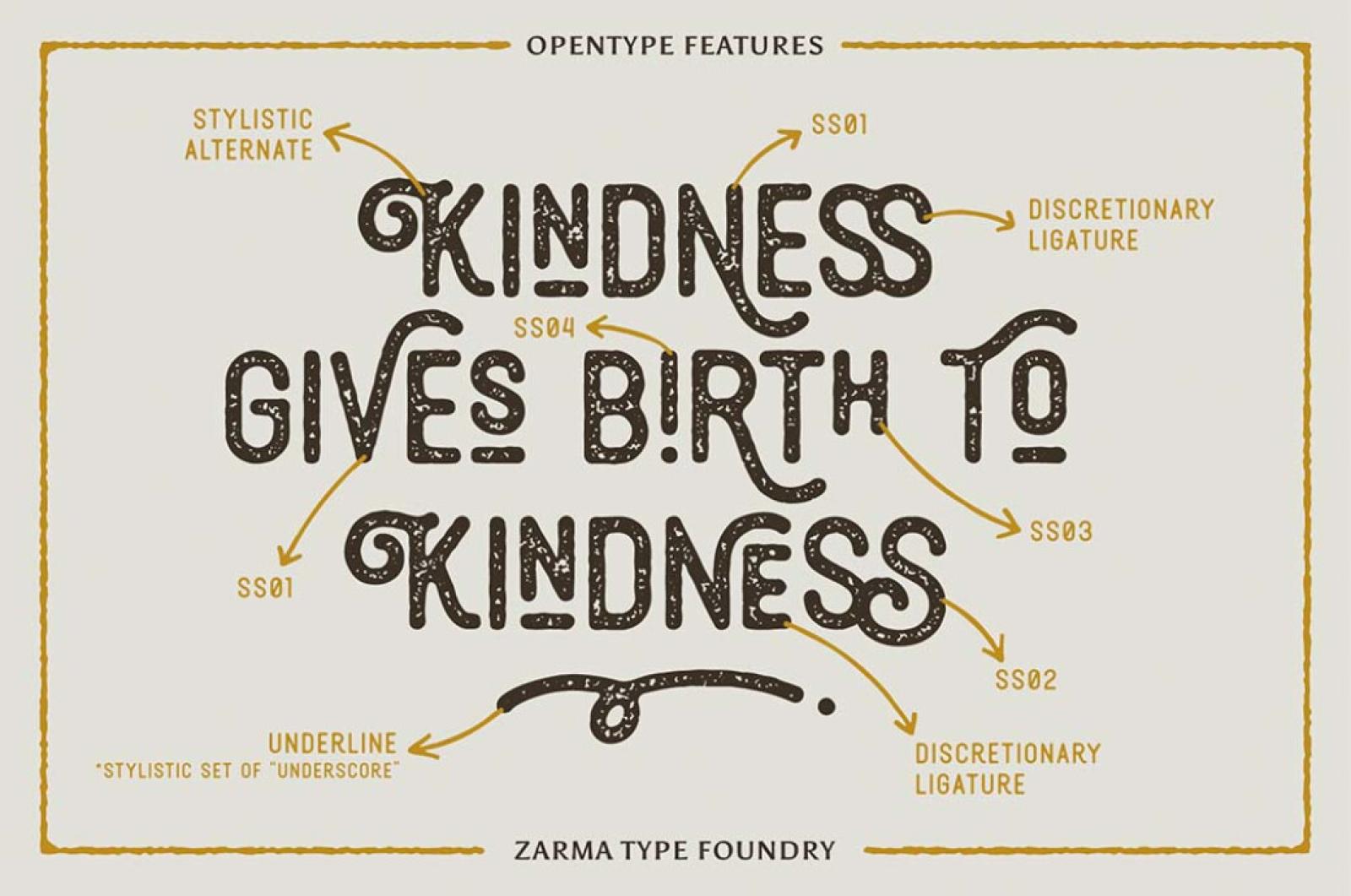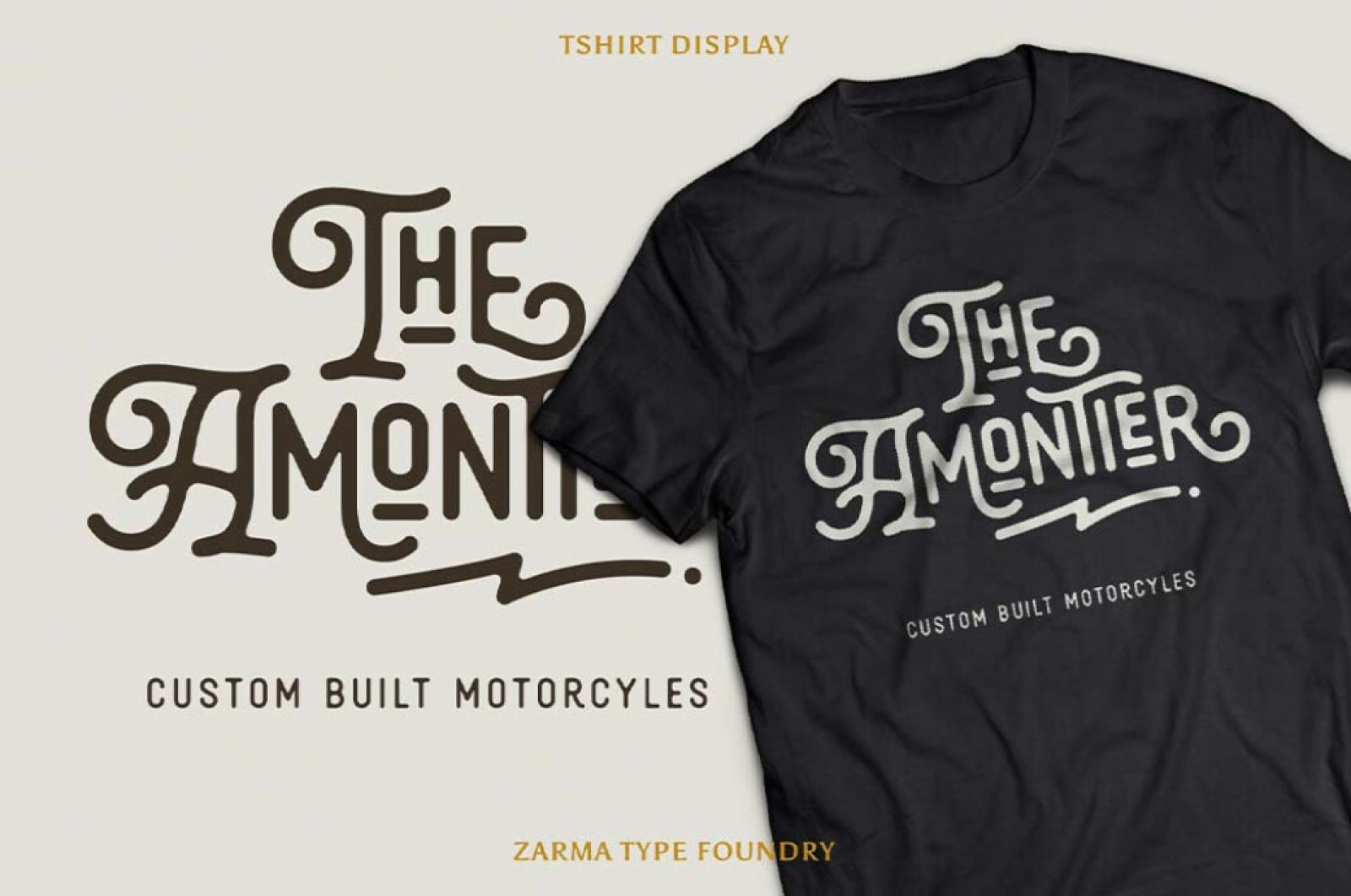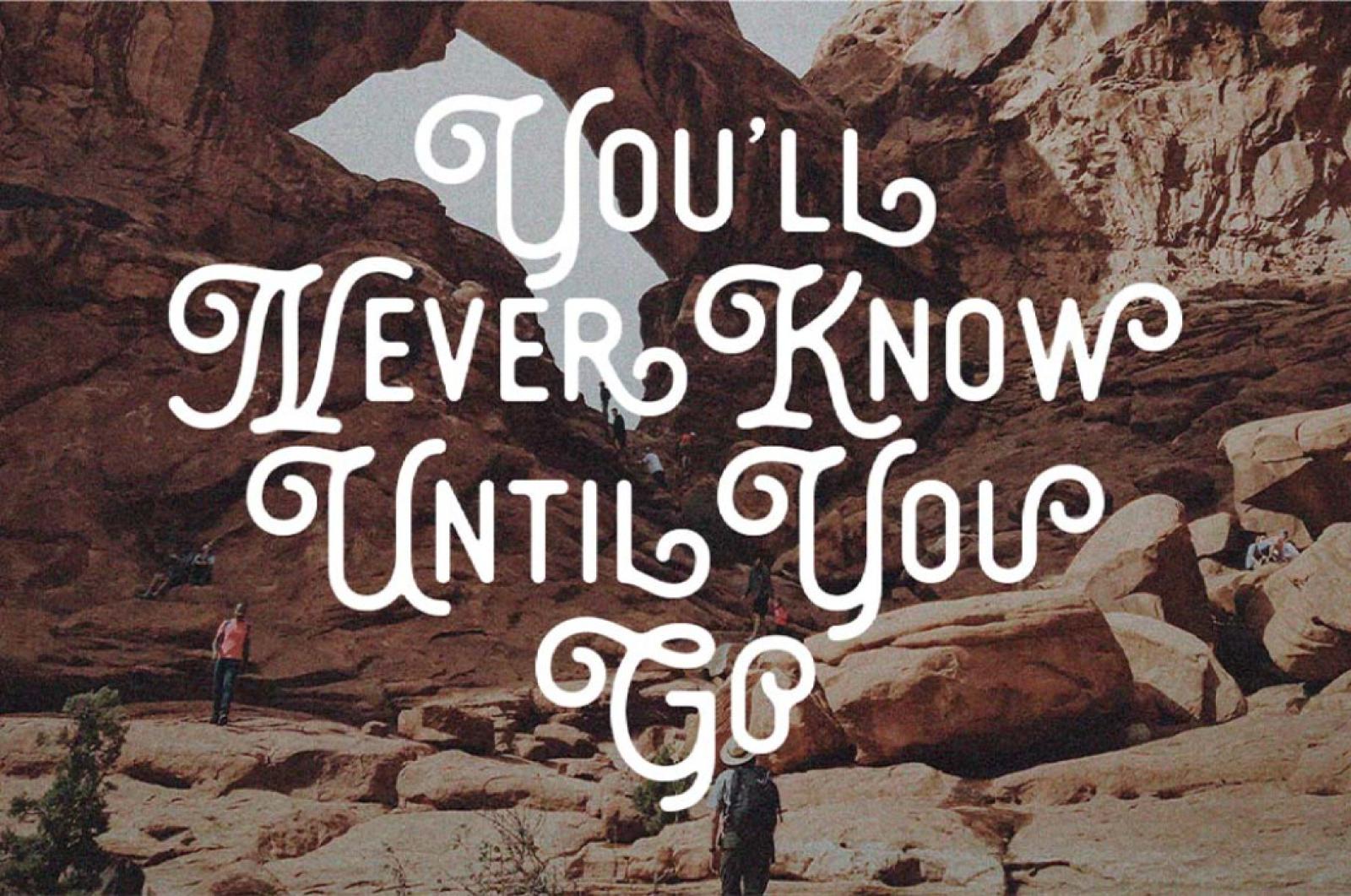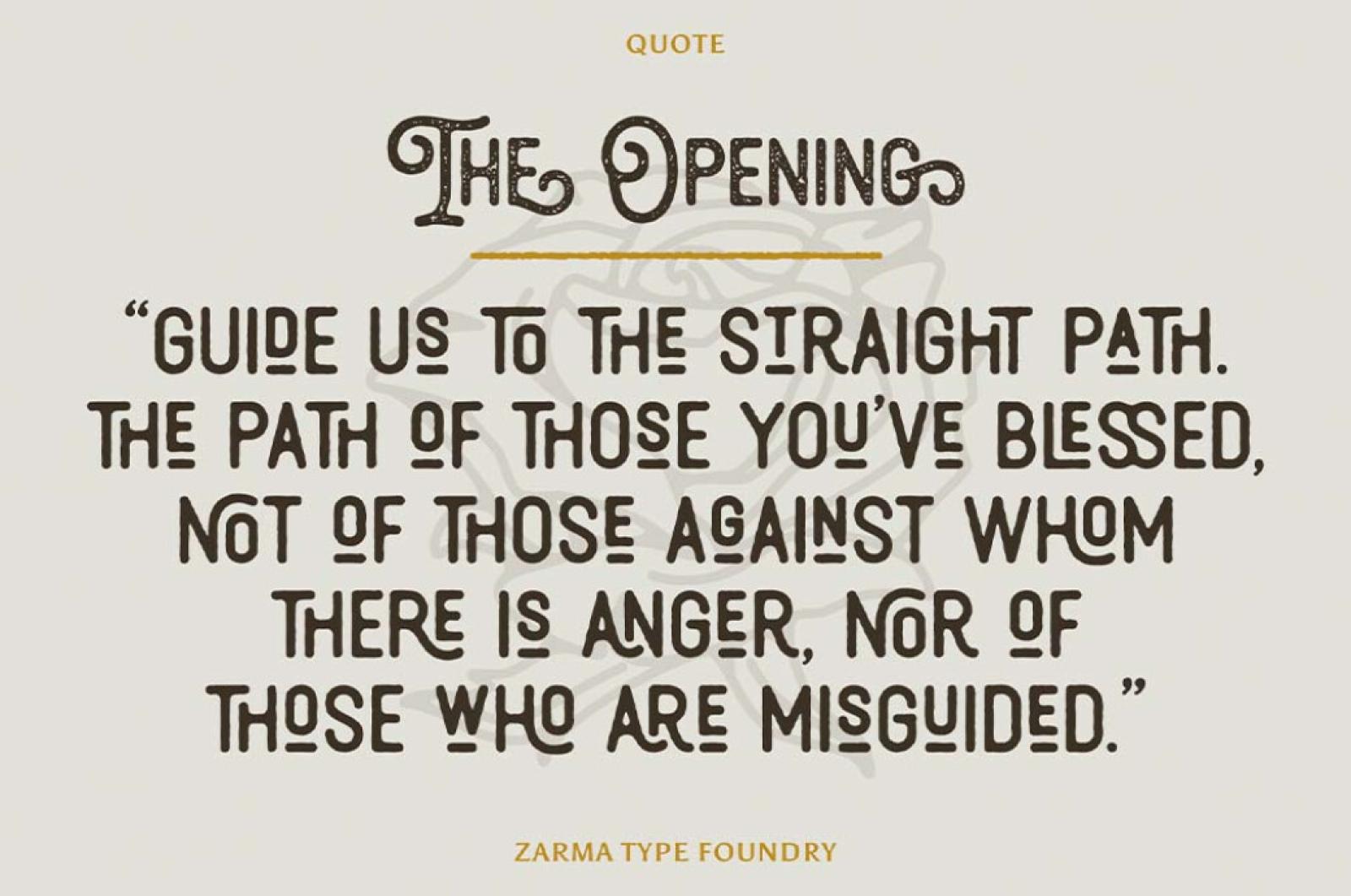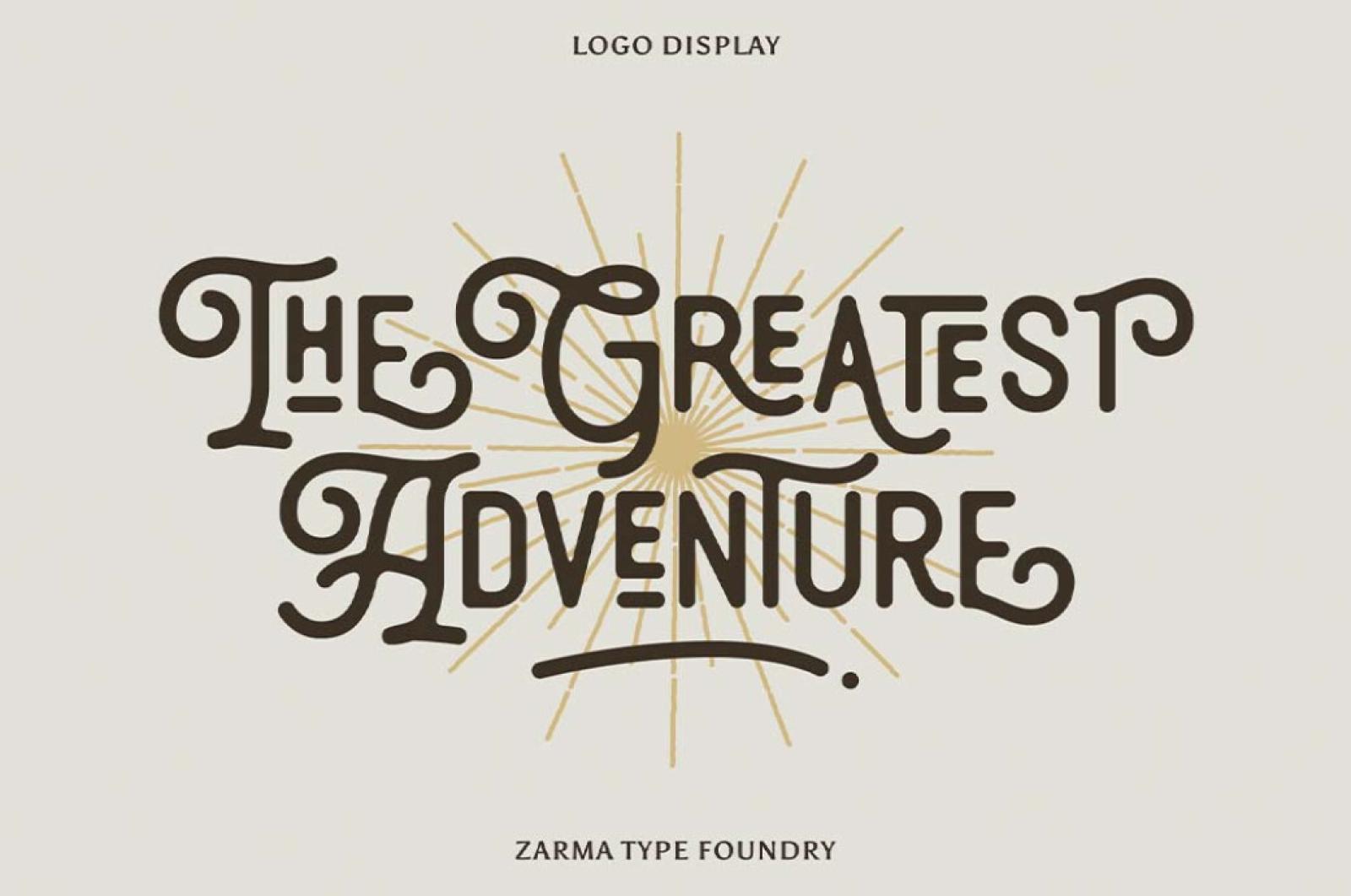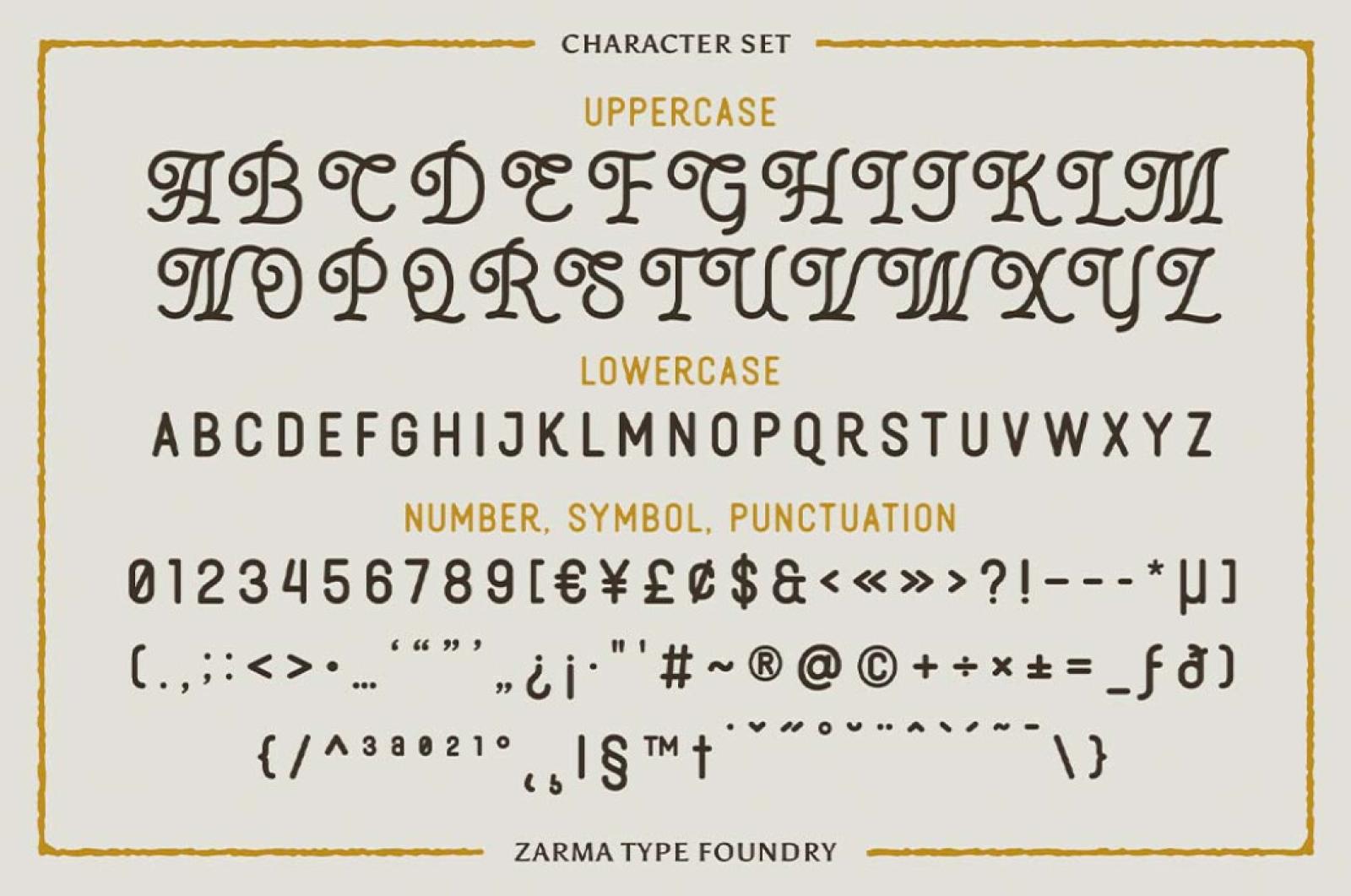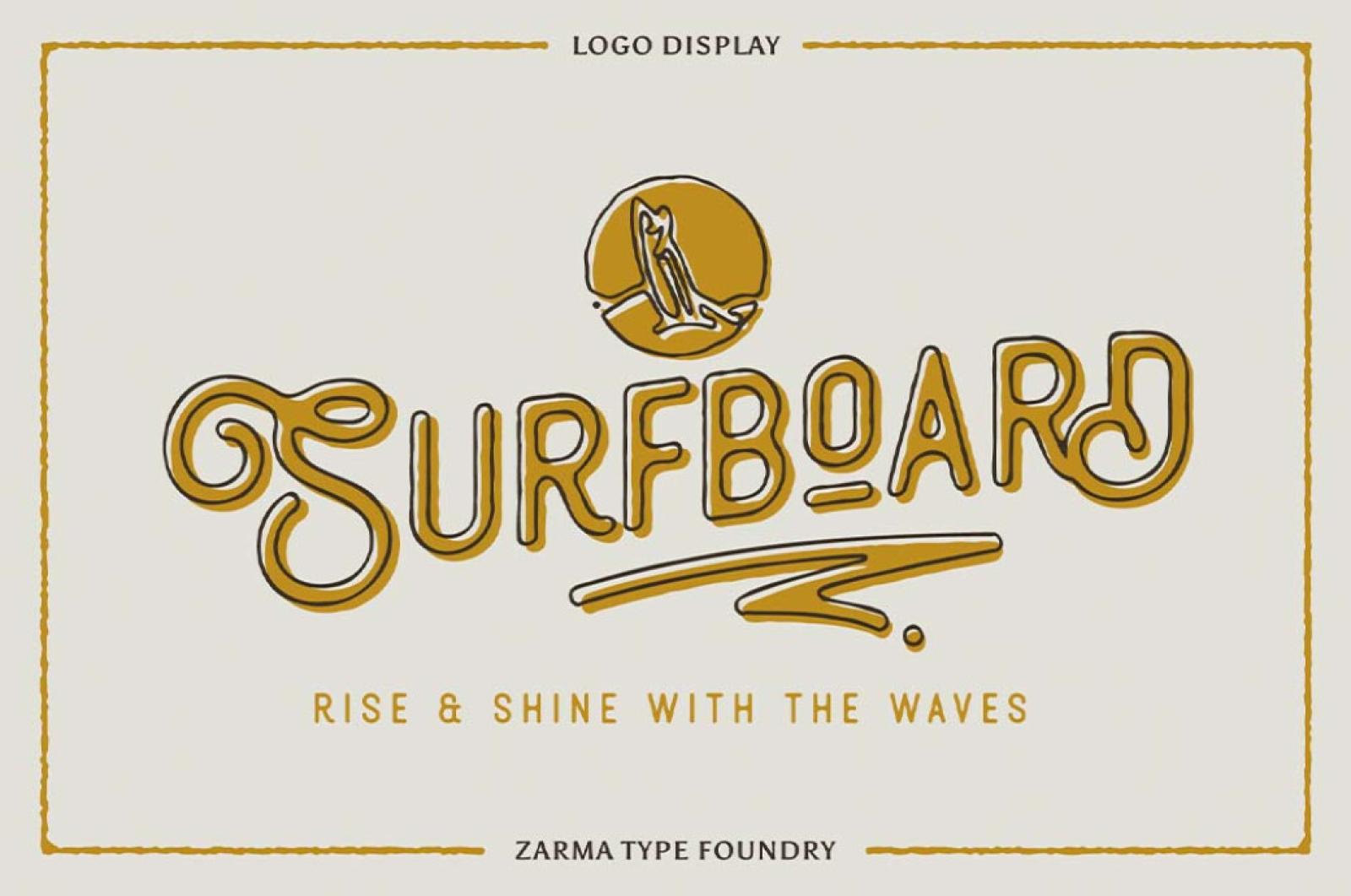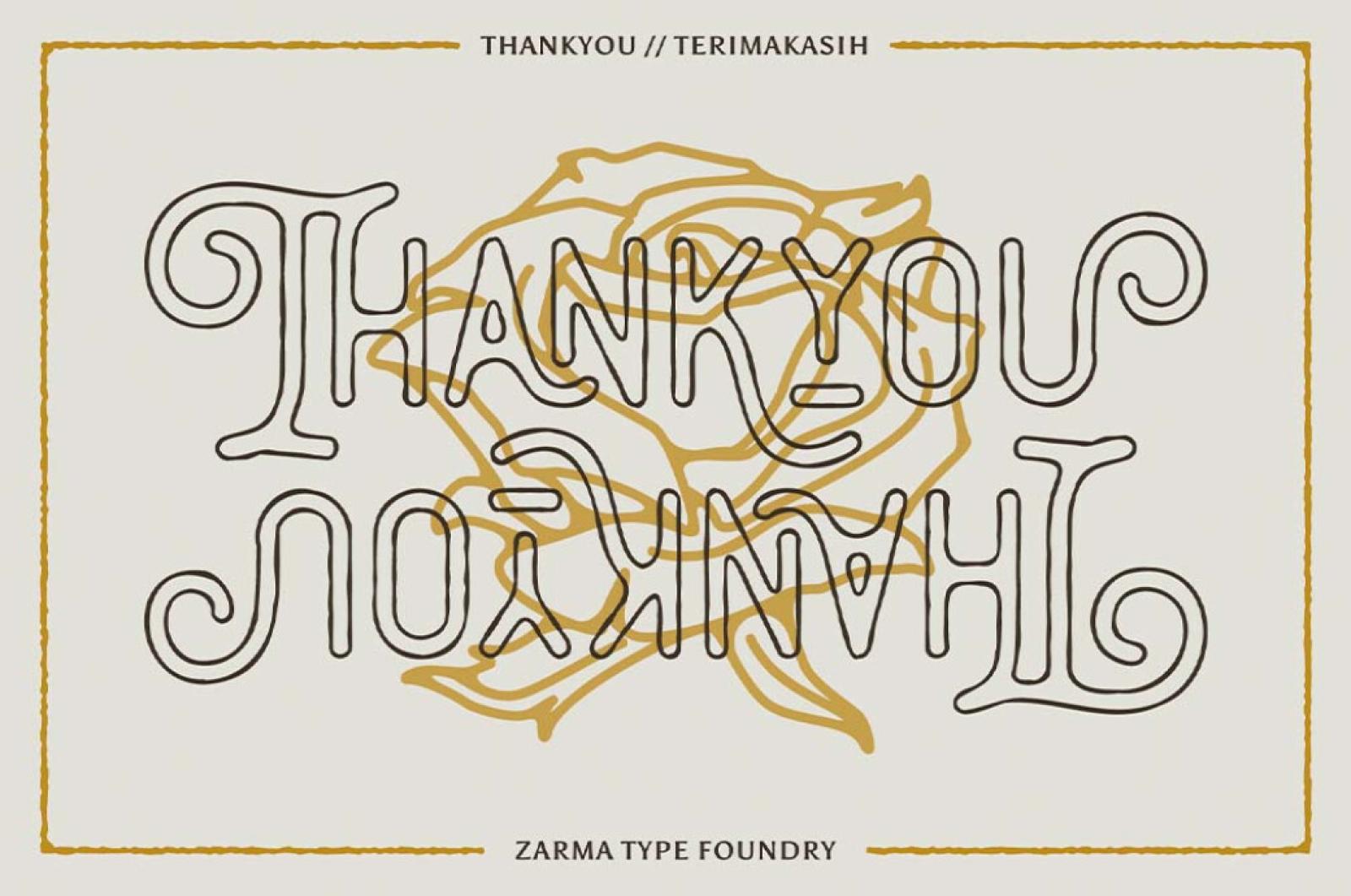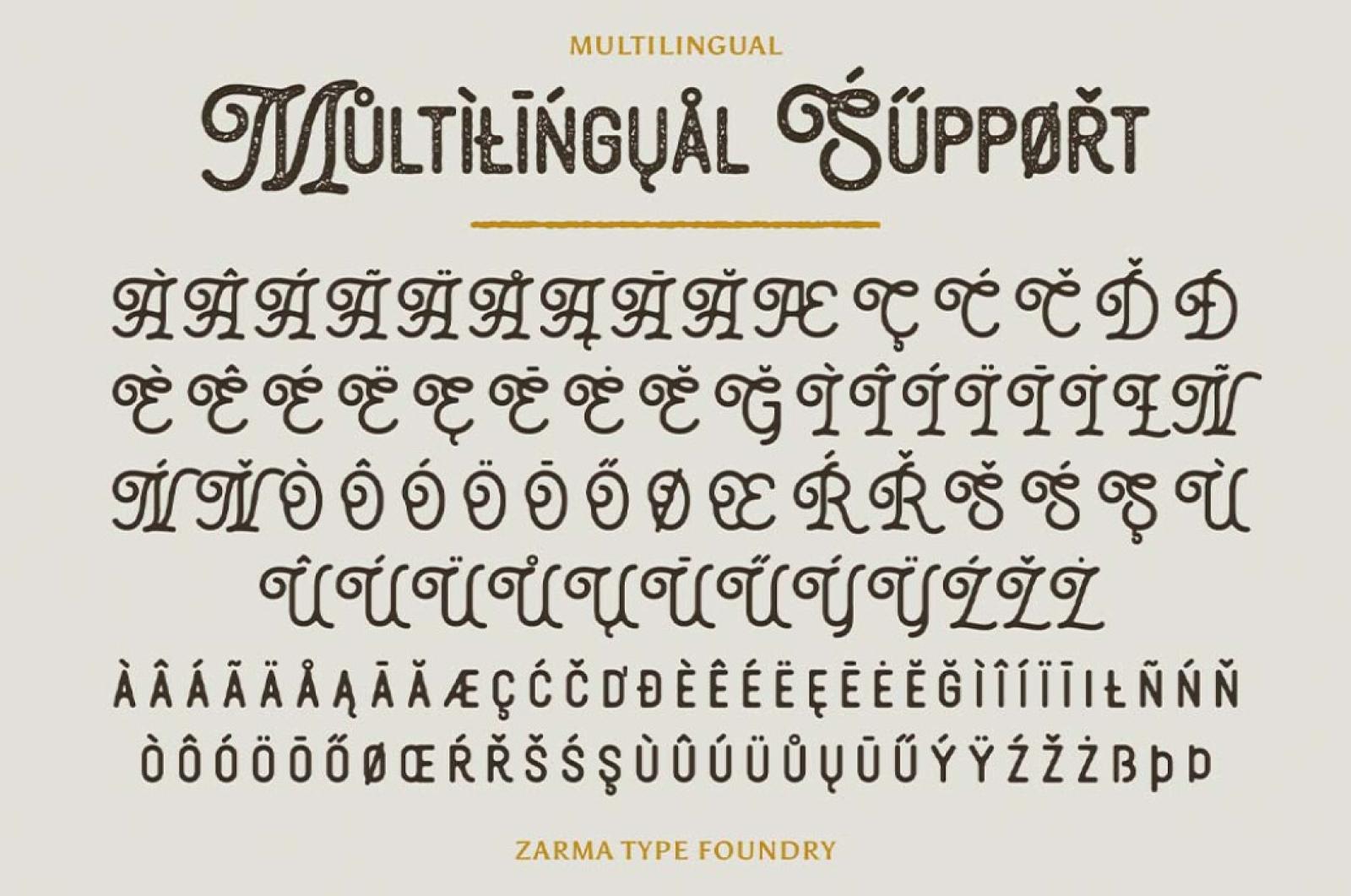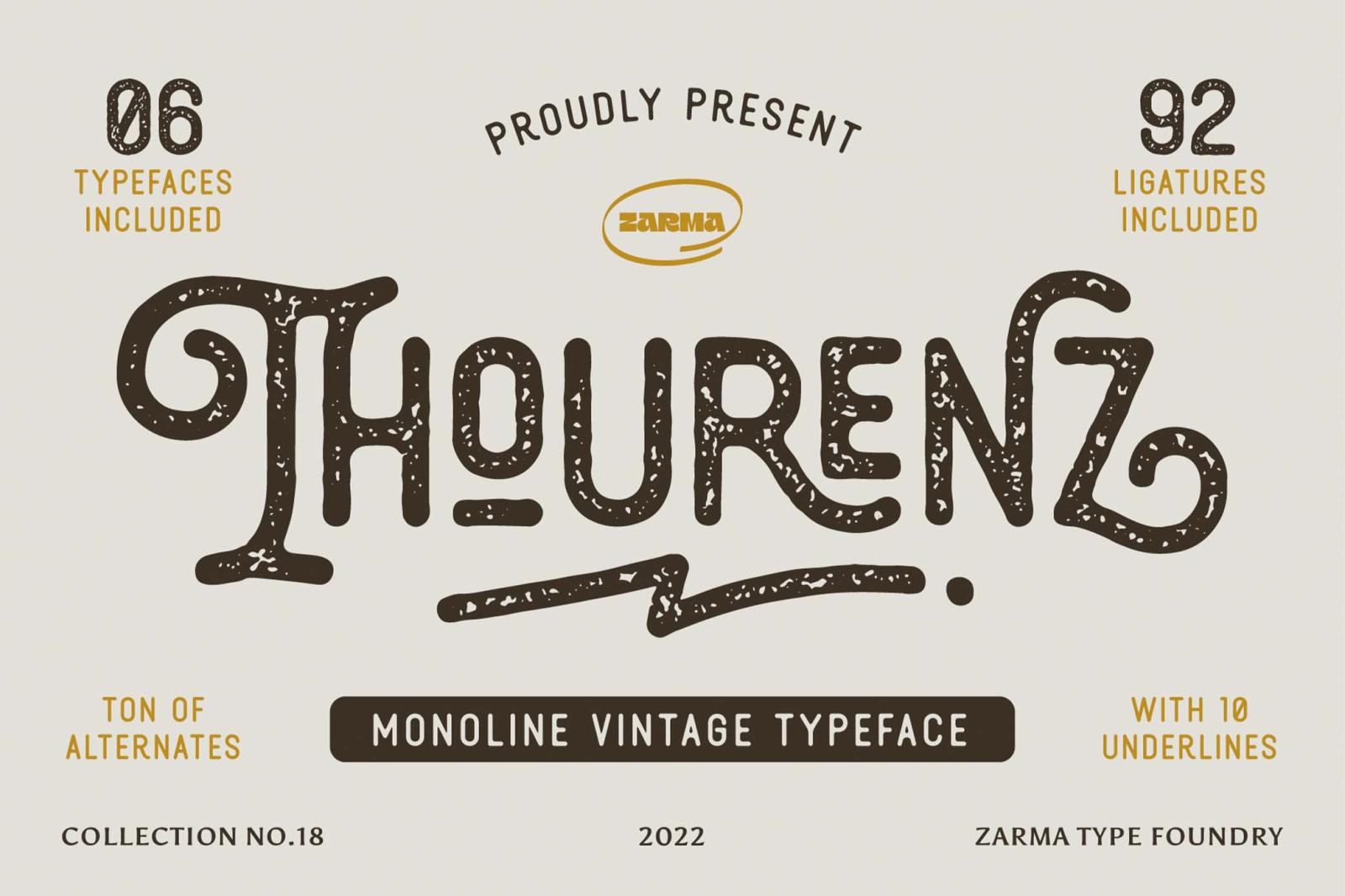
Thourenz — Monoline Vintage Font
Mixing is good, especially when blending two different yet extraordinary epochs. Thourenz took the best of two worlds, Victorian-era spirits labels and Art Nouveau aesthetics. This font celebrates elegant curves and long lines combined with sharp angles.
Thourenz comes in 6 styles to help you create yesteryear typography. It is a gift to vintage fervents who look for a complete set of upper and lower cases, numbers, symbols, punctuations, ligatures, alternatives, and underline glyphs. It looks good not only on bygone-inspired illustrations: elaborate modern merches, add strokes of florid writing to a brand identity and stationery, create ad posters, and so on.